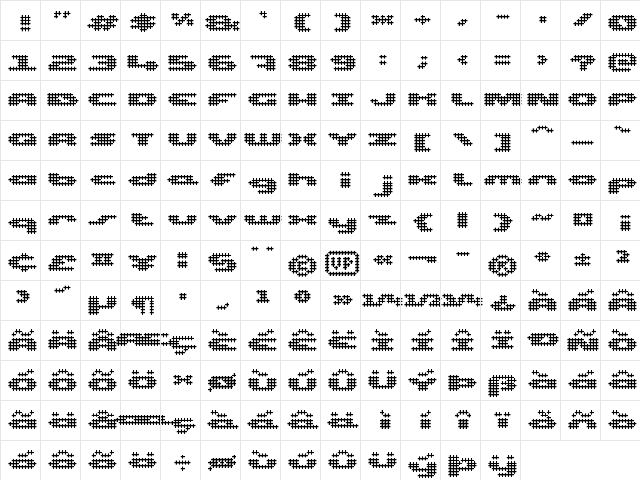
UP Tiny lcd four 8 decoC Regular
| Foundry | UrbanPixel |
| Designer | Michel Troy - from Montreal |
Design Context for UP Tiny lcd four 8 decoC Typeface
UP Tiny lcd four 8 decoC is a composed and adaptable typeface that performs quietly and consistently across a wide range of design contexts.